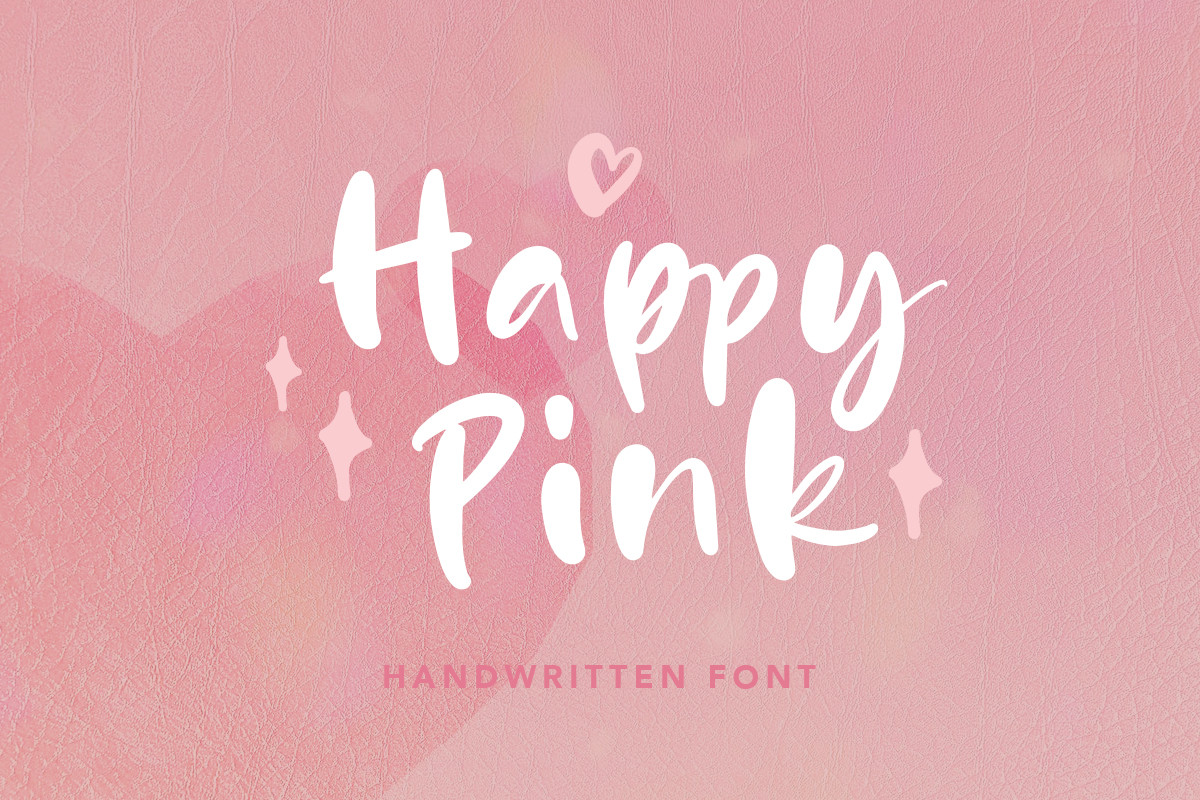
Happy Pink Font
Perfect for branding, social media posts, invitations, logos, and feminine-themed designs.
The Happy Pink Font excites designers with its playful, handwritten script style that radiates charm and joyful energy.
The Happy Pink Font Free Download is a lively and expressive typeface featuring smooth curves and whimsical strokes, ideal for lifestyle branding, greeting cards, and creative editorial projects.
One of the key strengths of Happy Pink Font is its ability to blend friendliness with stylish flair, making your designs approachable and trendy.
In branding, Happy Pink conveys creativity, fun, and warmth. It pairs beautifully with pastel colors, playful graphics, and light-hearted layouts to create engaging and memorable visuals.
For digital projects, this font enhances website headers, social media content, and digital invitations, adding a fresh and feminine vibe to your typography.